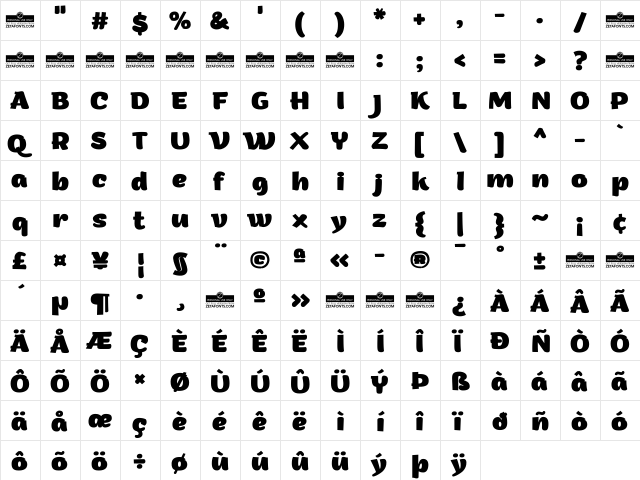
Arturo Trial ExtraBold
| Foundry | Zetafonts |
| Designer | Francesco Canovaro |
Design Context for Arturo Trial Typeface
Arturo Trial takes a measured approach to typography — its balanced proportions and neutral character make it a reliable workhorse for both digital and print work. The heavy weight commands attention and anchors typographic hierarchies.